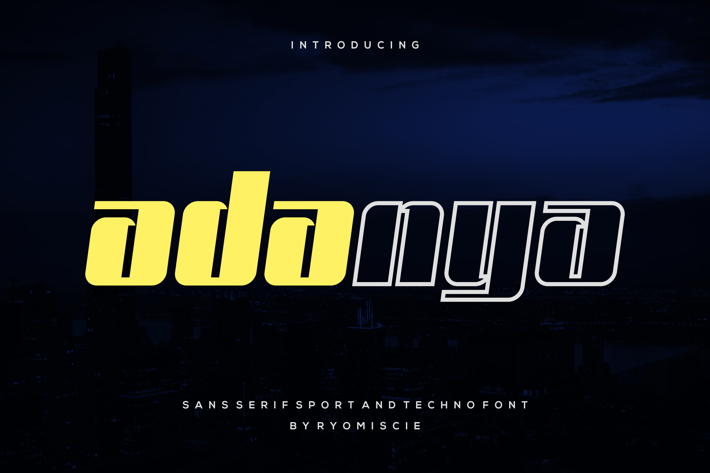
Adanya - Sans Serif Sport And Techno Font
Introducing our new product Adanya - Sans Serif Sport And Techno Font
Adanya - Modern Font is a bold and authentic display font. The font is suitable for any branding project like logo,
t-shirt printing, esport, and many more. outstanding in a wide range of contexts.
Adanya Lowercase
Adanya Alternate